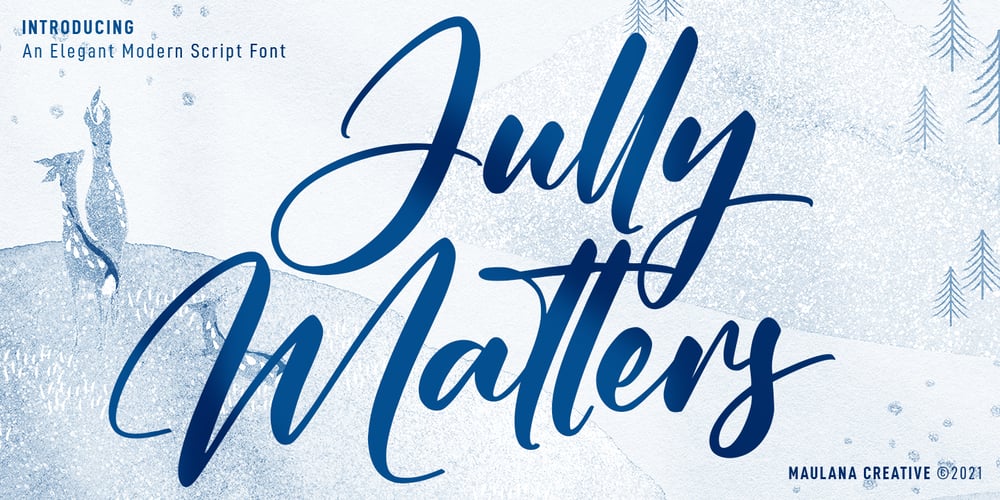
Jully Matters
Jully Matters font
Jully Matters Font Family was designed by Gilang Maulana and published by Maulana Creative. Jully Matters contains 1 styles and family package options. Jully Matters is an elegant modern script font. With high contrast stroke, fun character with a bit of ligatures and alternates. To give you an extra creative work. Jully Matters font support multilingual more than 100+ language. This font is good for logo design, Social media, Movie Titles, Books Titles, a short text even a long text letter and good for your secondary text font with sans or serif. Make a stunning work with Jully Matters font. Cheers, MaulanaCreative